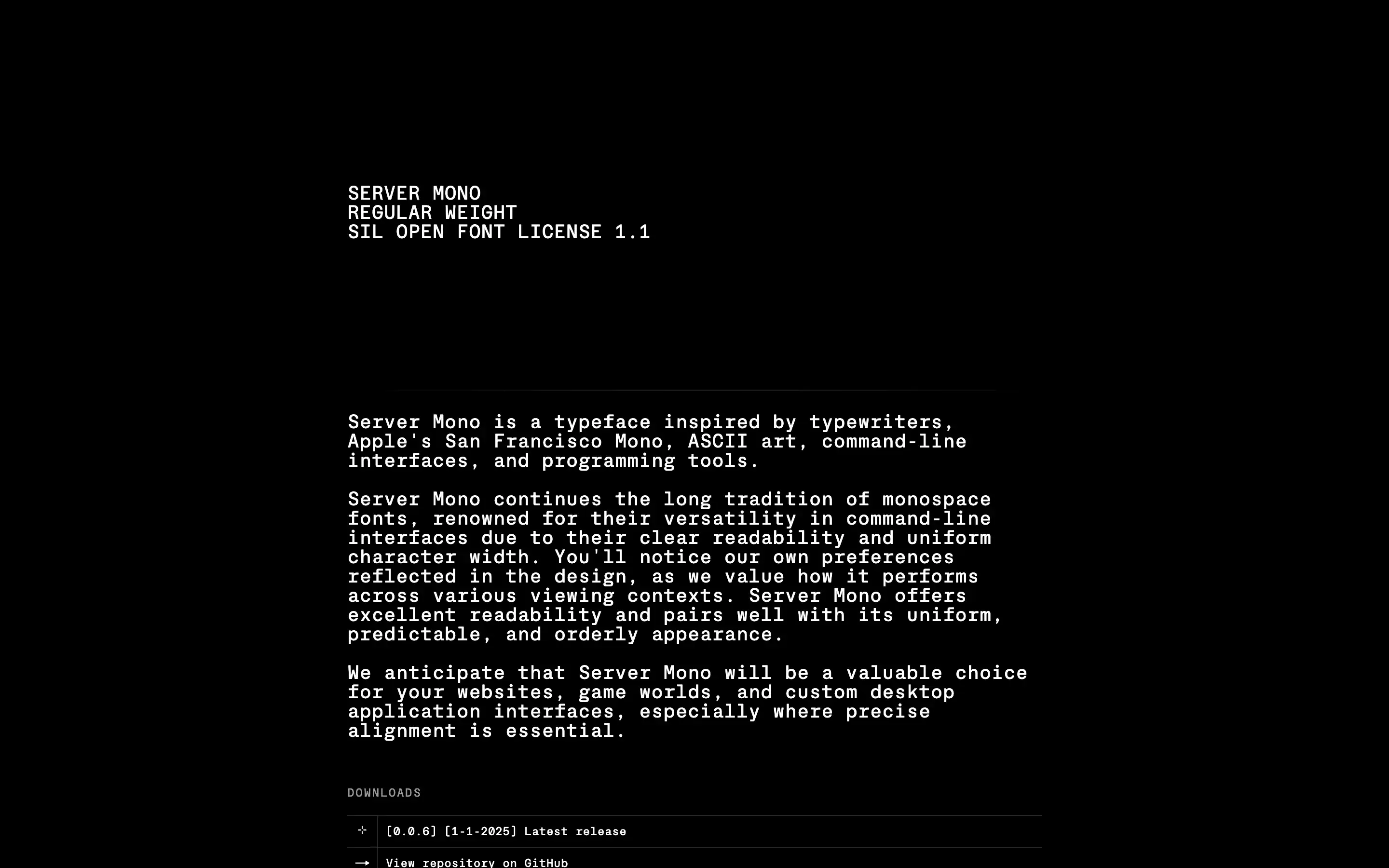
Server Mono typeface inspired by typewriters and ASCII art.
Server Mono is a monospaced typeface inspired by typewriters, Apple’s San Francisco Mono, ASCII art, command-line interfaces, and programming tools. Released in 2024 by the Internet Development Studio Company of Seattle, Washington, it was created by designers Tim Vanhille and Matthieu Salvaggio, with additional direction from Jimmy Lee and the Internet Development Studio Company community.
This single-weight font is particularly useful for developers and designers seeking a clear and uniform typeface for coding environments, command-line interfaces, and other applications where precise alignment is essential. Server Mono offers excellent readability and pairs well with its uniform, predictable, and orderly appearance.